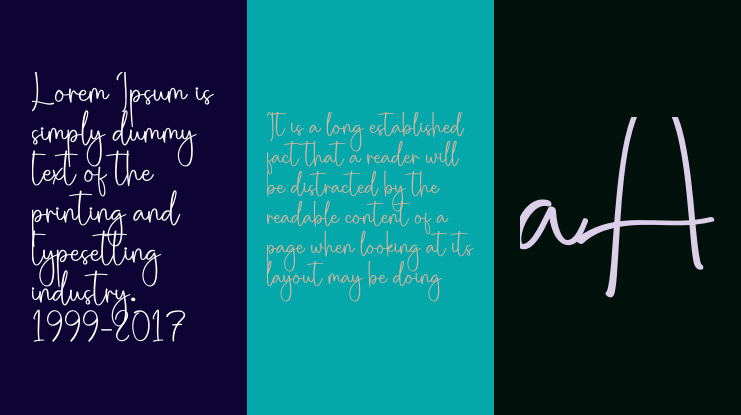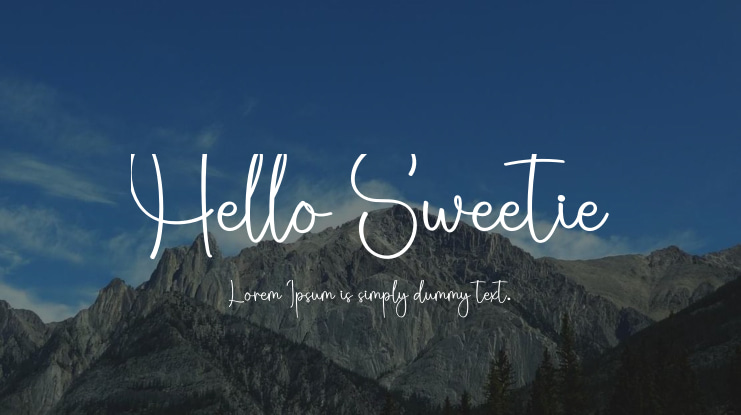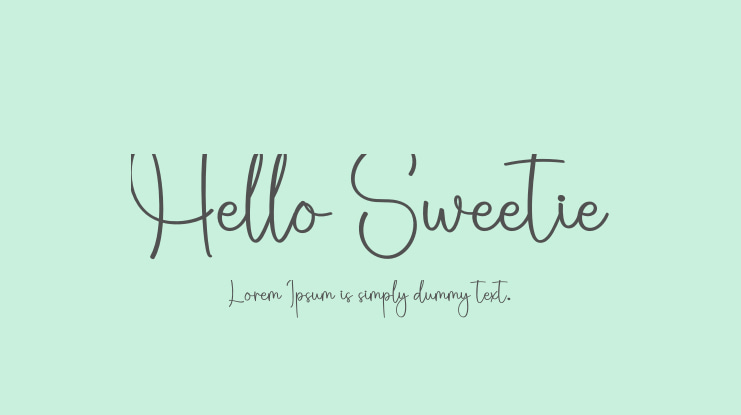
The latest style of letters is perfect for various applications such as wall displays, wedding invitations, social media post logos, advertisements, product packaging, product designs, labels, photography, watermarks, invitations, stationery, or any project that requires tasteful handwriting.